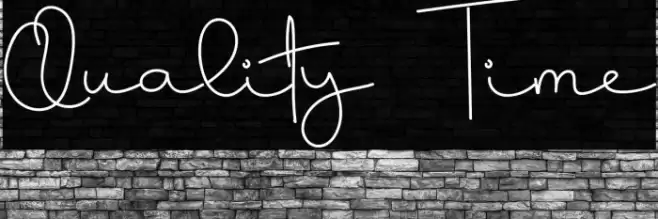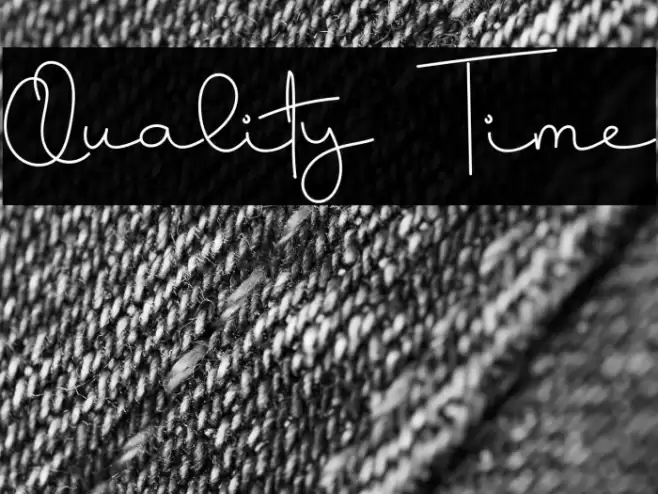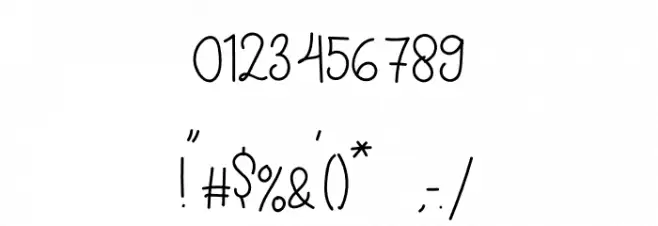
Quality Time Font
Quality Time Description
This font features a whimsical and playful handwritten style, characterized by its fluid and continuous strokes. The uppercase letters are tall and slender, with a slight slant that adds a dynamic feel. The lowercase letters maintain a consistent flow, connecting smoothly in a cursive manner. Numbers are clear and easy to read, while special characters retain the same playful essence. The overall design is light and airy, making it suitable for projects that require a personal touch. The font's unique style is ideal for creative and informal applications, offering a sense of individuality and charm.
A whimsical handwritten font with fluid, continuous strokes and a playful style from Regular fonts.
- Proposed Projects: Ideal for greeting cards, invitations, personal branding, and creative projects that require a personal touch.
- Overall Style: Playful, Whimsical
- Use Case: Logos, Invitations, Greeting Cards